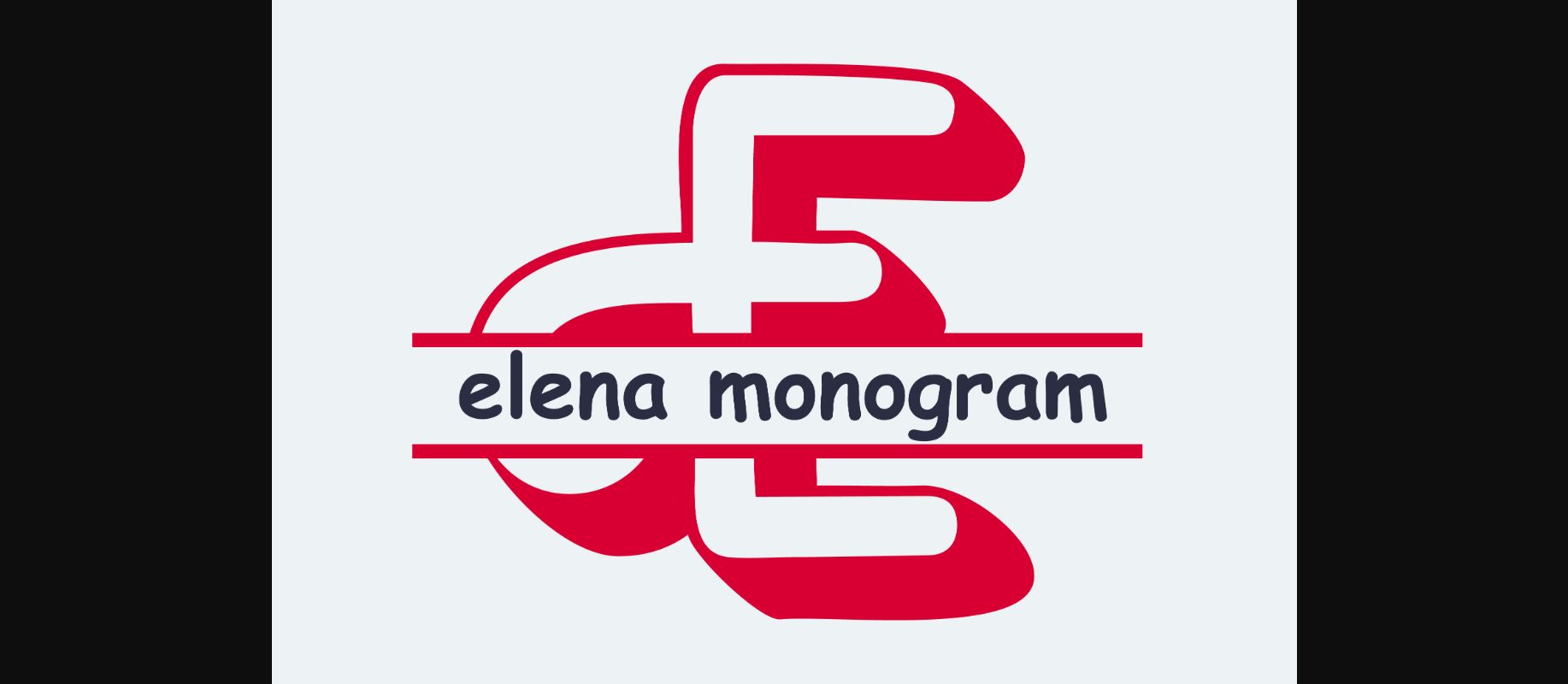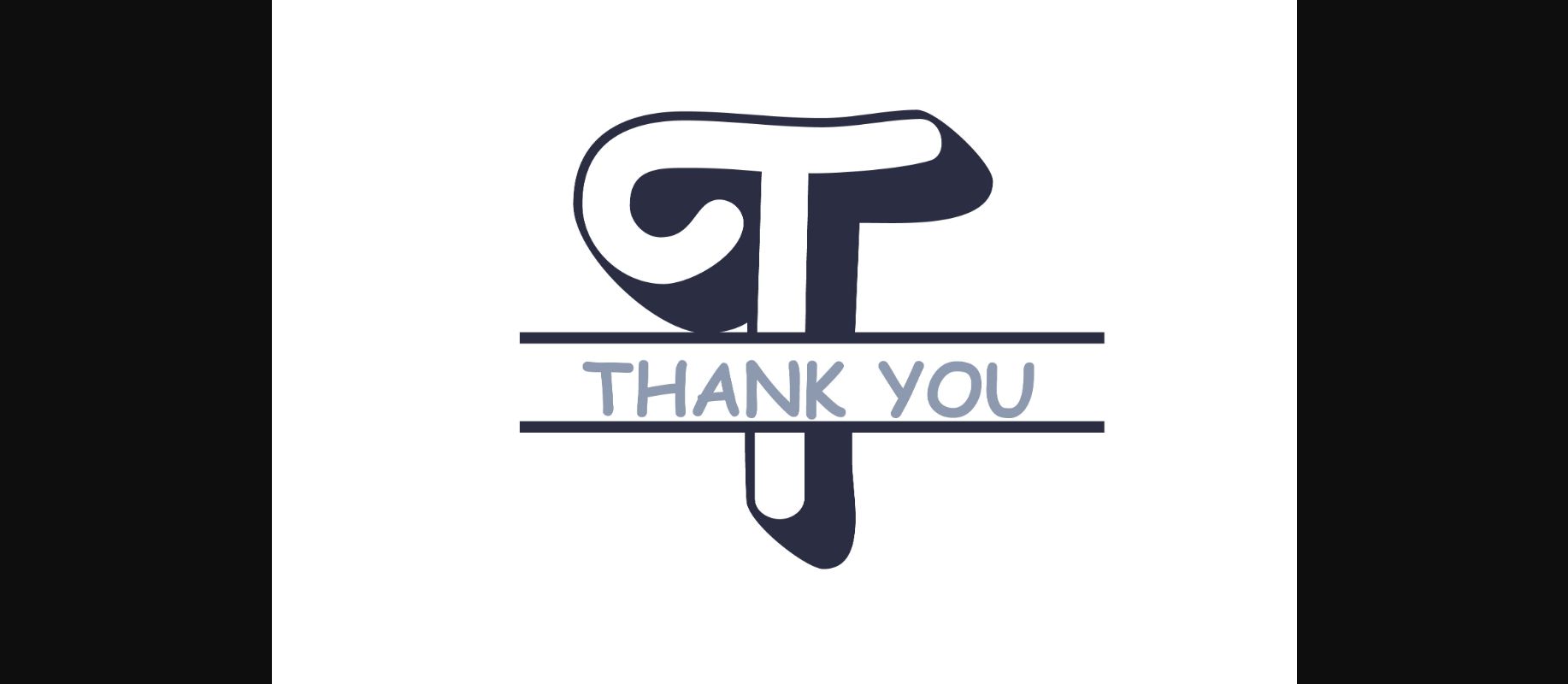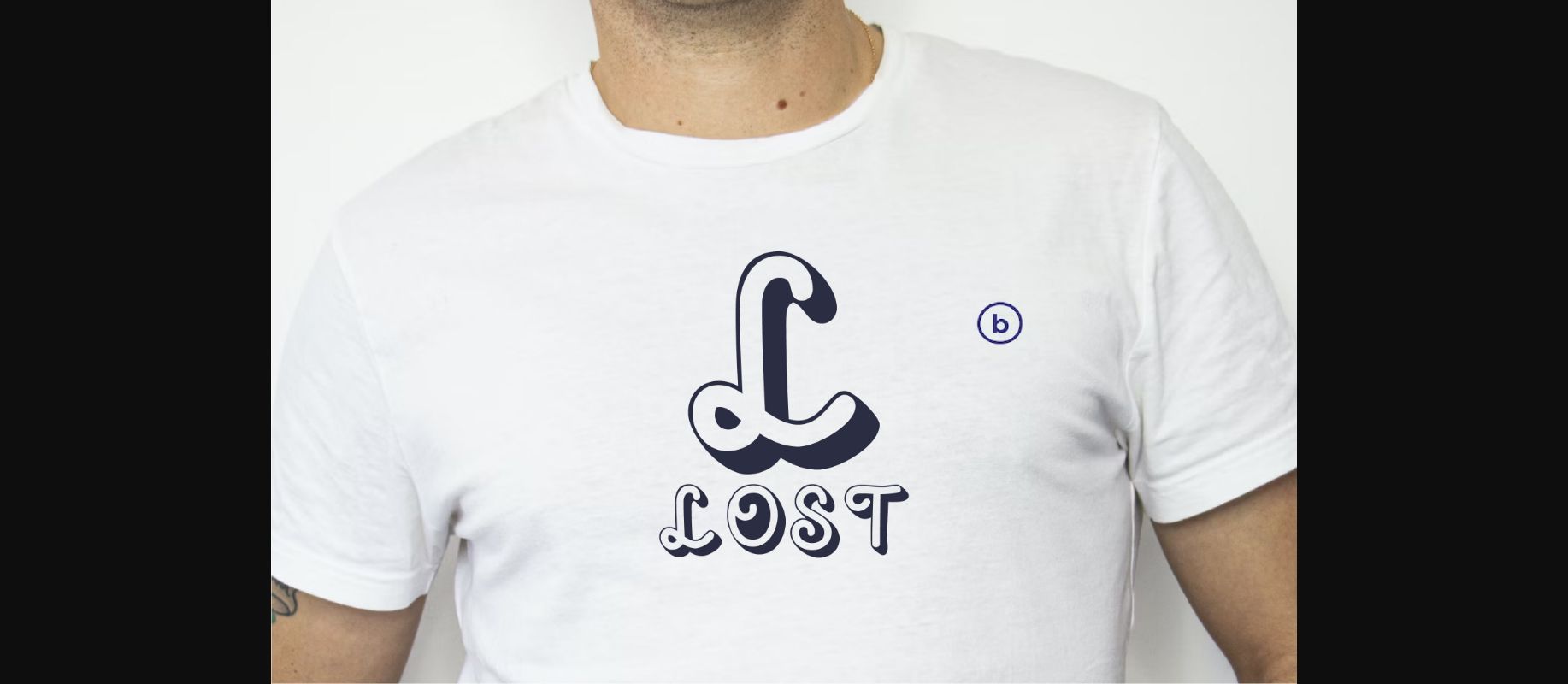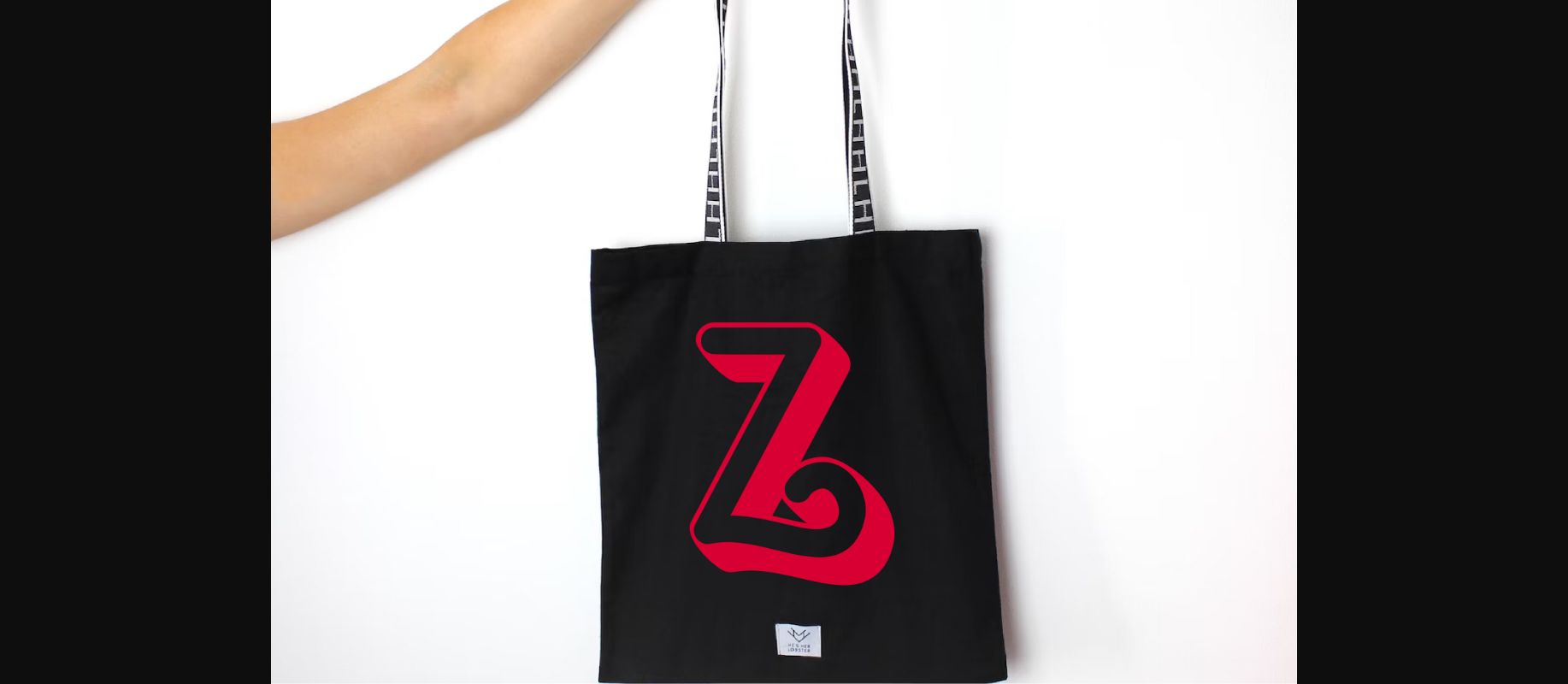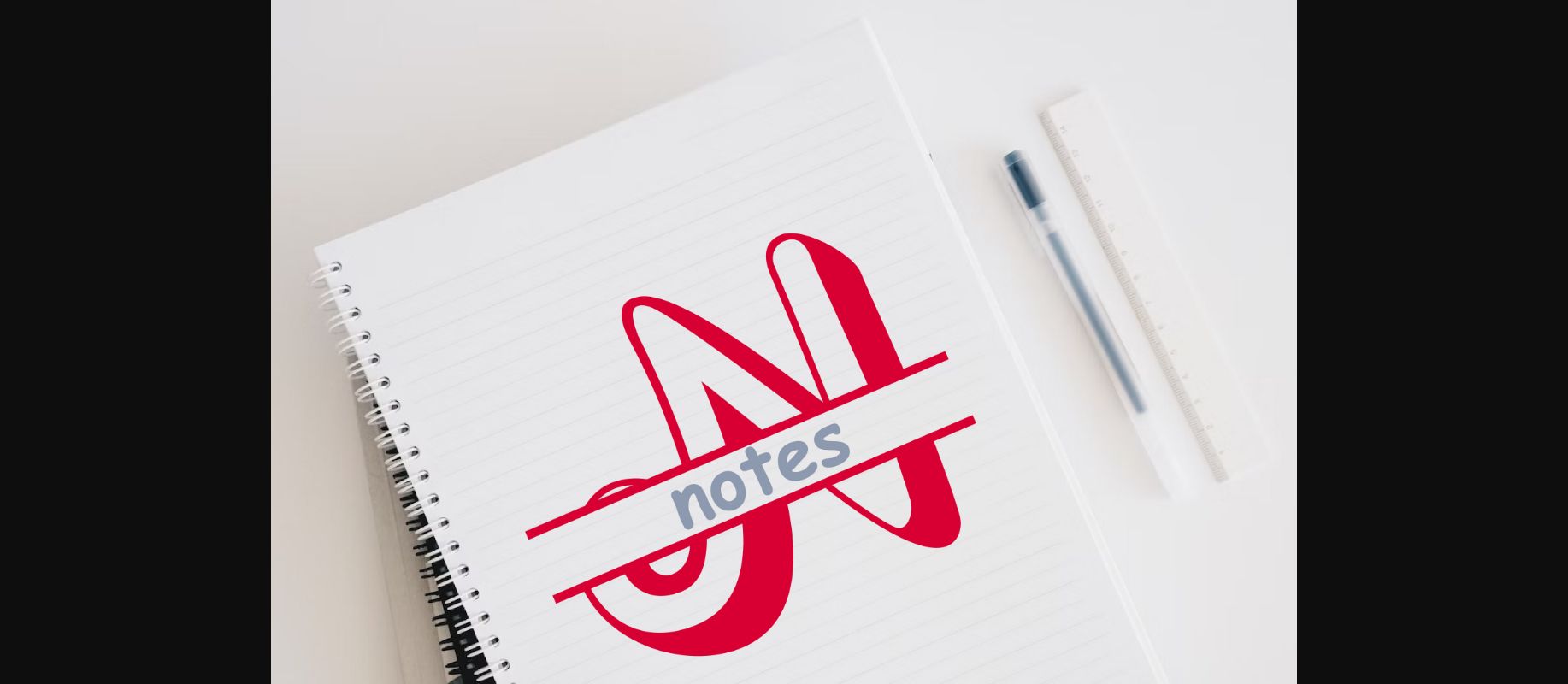
Elena Monogram Font
About Elena Monogram Font
Elena Monogram is a simple and cute monogram font. Fall in love with its authentic feel and use it to create beautiful stationary art, eye-catching social media posts, and cute greeting cards.